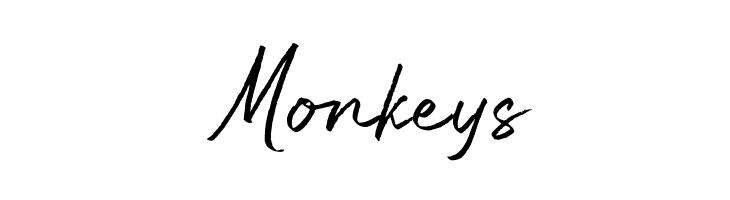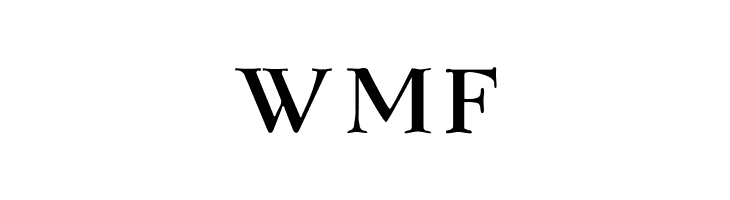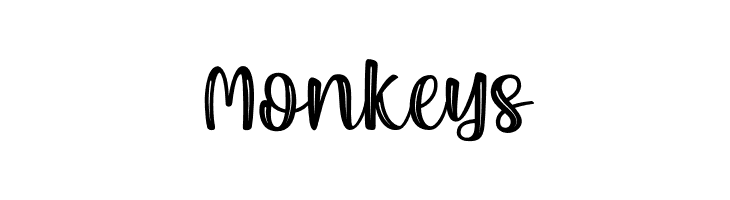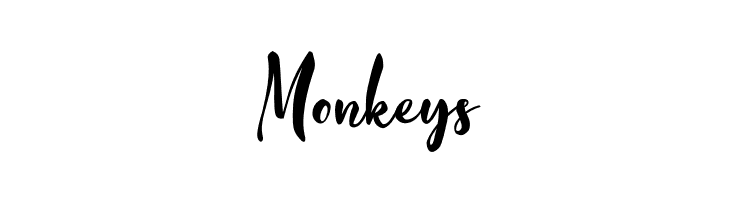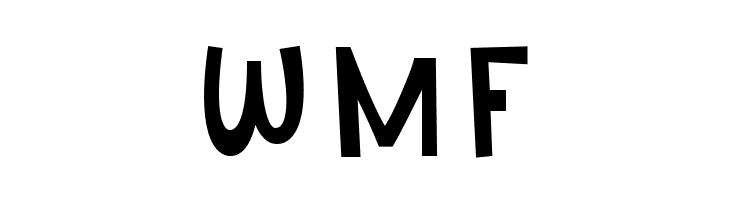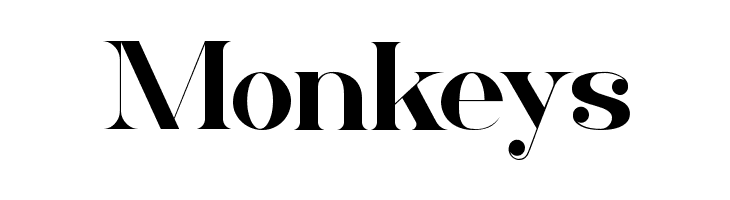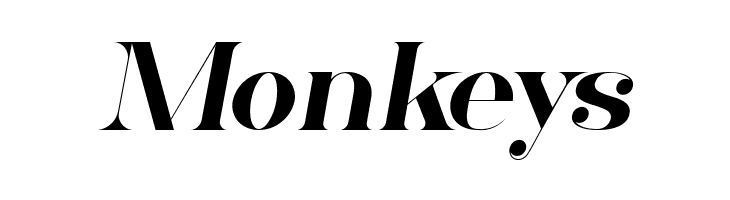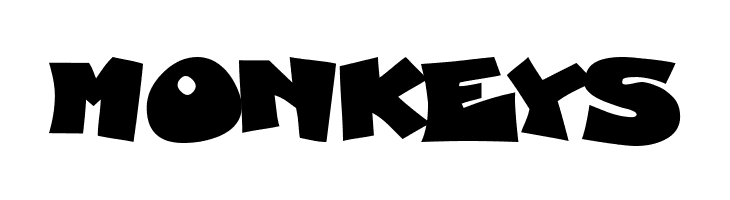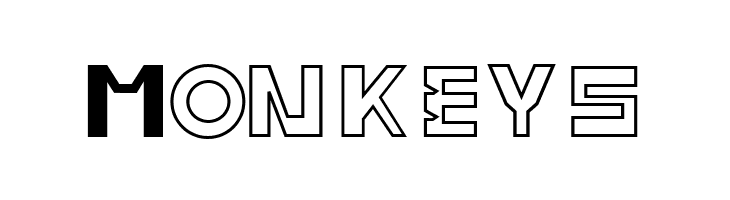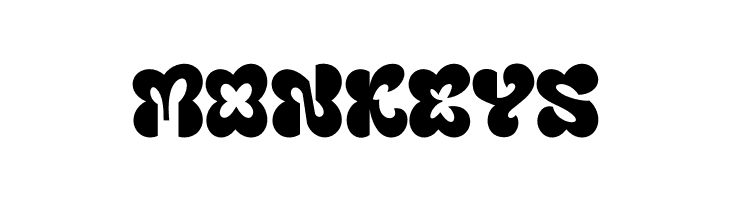
A decorative font with floral embellishments and a vintage, whimsical style.
A playful, Easter-themed decorative font with outlined letters and festive graphics.
A playful, hand-drawn font with quirky, irregular lines and decorative elements.
A whimsical font with each letter encased in a cartoon sheep, perfect for playful designs.
A decorative serif font with each character encased in a mitten design.
A whimsical, decorative font with letters featuring umbrellas and characters.
A festive serif font with integrated snowmen, perfect for holiday designs.
A playful font with teddy bear illustrations integrated into each character.
A decorative font with snowman-themed letters, perfect for festive projects.
A bold, dynamic script font with flowing, connected letters and a strong presence.
A bold, dynamic script font with high contrast and elegant cursive style.
A casual, handwritten font with a playful and informal style.
A geometric, angular font with a modern and edgy style.
A classic serif font with elegant, sharp serifs and a sophisticated appearance.
A clean, modern sans-serif font with uniform strokes and balanced spacing.
A bold, geometric font with sharp, angular lines.
A playful, handwritten font with a medium weight and rounded edges, perfect for creative projects.
A playful, handwritten font with a childlike charm and bold strokes.
A playful, hand-drawn font with bold, rounded characters and a whimsical style.
A modern, rounded sans-serif font with smooth curves and a clean, approachable style.
A bold, graffiti-inspired font with dynamic and energetic strokes.
A dynamic, calligraphic font with sharp, angular strokes and high contrast.
A bold, decorative font with playful, abstract shapes and rounded strokes.
A playful, casual handwritten font with smooth curves and a friendly appearance.
A bold, expressive script font with elegant flourishes and a handwritten feel.
A bold, high-contrast serif font with a modern and dramatic style.
A bold, dynamic script font with fluid, connected letterforms and modern calligraphic elements.
A bold, dynamic script font with thick, extruded letterforms.
An elegant script font with an engraved, diagonal line pattern.
A modern engraved font with a diagonal line pattern and cursive lowercase letters.
A bold, playful font with rounded, bubble-like characters.
A bold, playful, and decorative font with a whimsical style.
A bold, distressed font with a grunge, textured appearance.